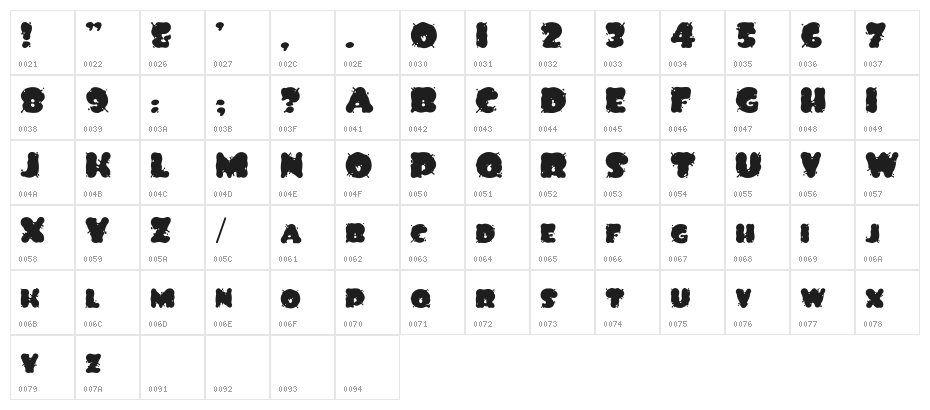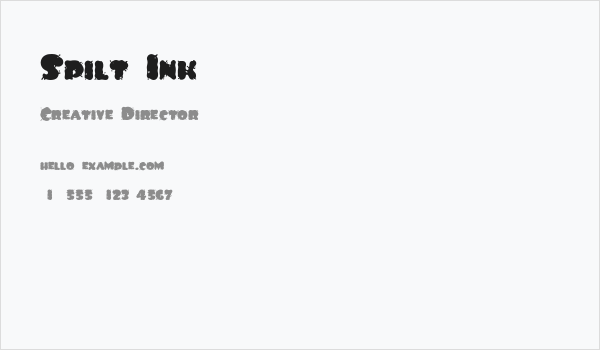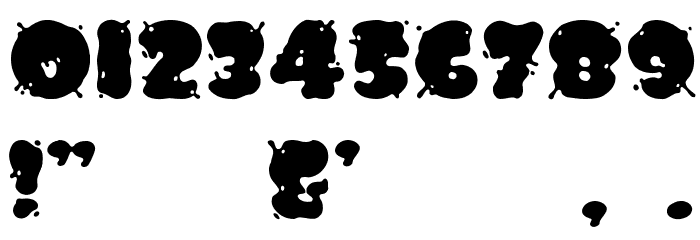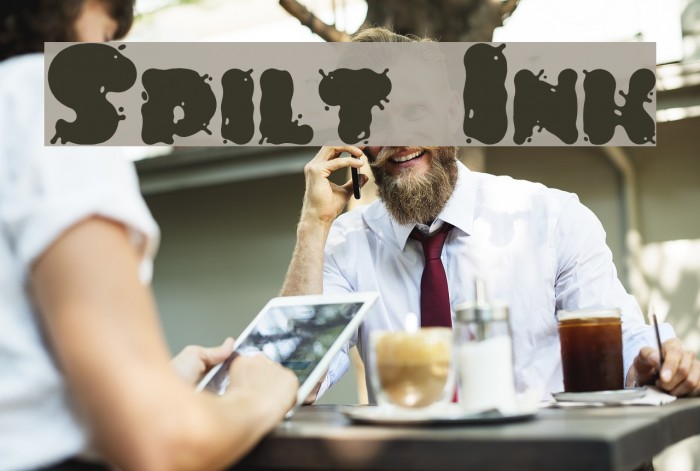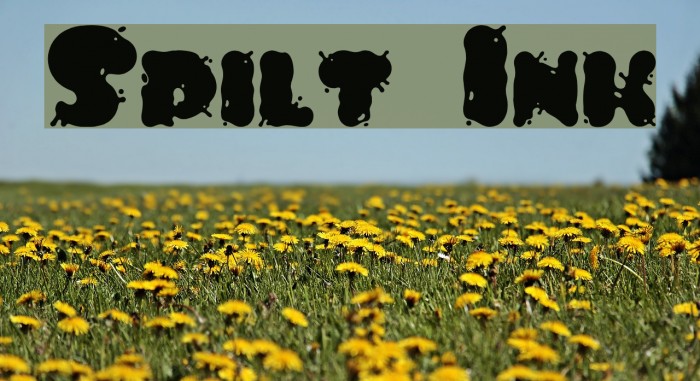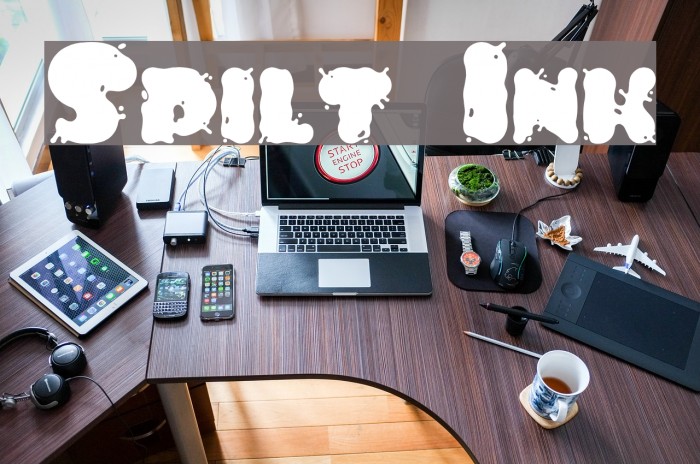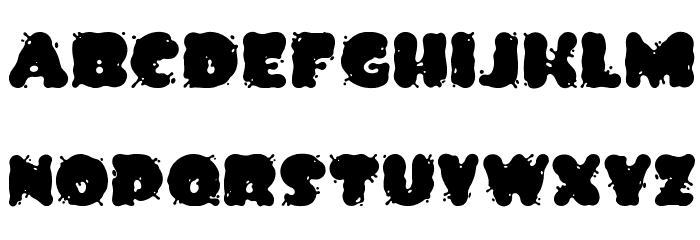
Spilt Ink Font
Spilt Ink Description
This font features a playful and bold design, reminiscent of ink splatters or paint drips. Each character is uniquely crafted with irregular edges and varying thickness, giving it a dynamic and artistic appearance. The letters are bold and substantial, making them stand out with a strong visual impact. The style is informal and creative, suitable for projects that require a fun and eye-catching typeface. The font maintains a consistent weight throughout, with each character having a similar width, contributing to a cohesive look. Its decorative nature makes it ideal for designs that aim to capture attention and convey a sense of creativity and spontaneity.
| Proposed Projects | Ideal for posters, children's book covers, event flyers, and artistic branding. |